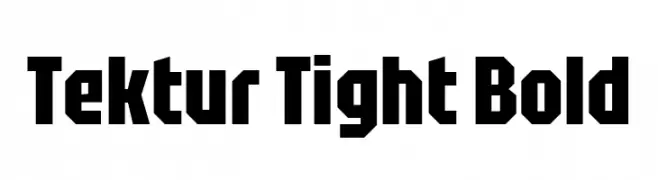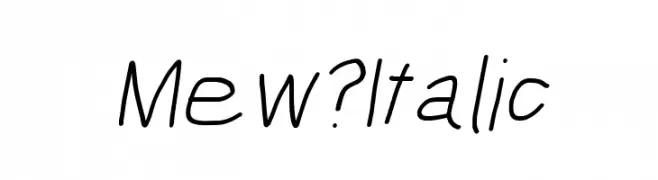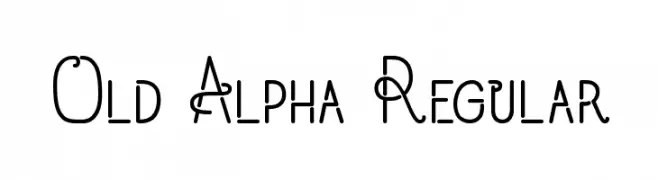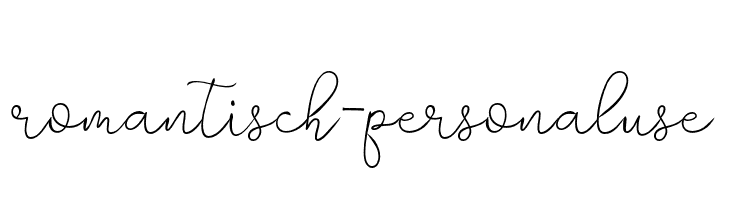
A bold, geometric font with tight spacing and angular lines.
An elegant script font with flowing, interconnected letters and ornate flourishes.
A playful, handwritten font with smooth, flowing curves and a casual style.
A modern, decorative font with geometric and artistic elements.
A playful font with heart motifs, perfect for romantic and whimsical designs.
A fluid, cursive script font with elegant, connected strokes.
A bold, italic, 3D font with outlined characters and a futuristic style.